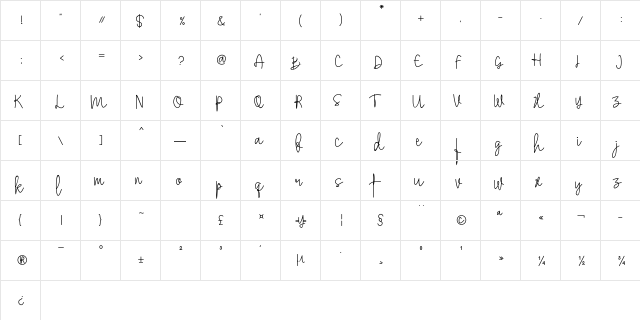
Stylistic Sign Regular
Design Context for Stylistic Sign Typeface
Stylistic Sign is a composed and adaptable typeface that performs quietly and consistently across a wide range of design contexts.